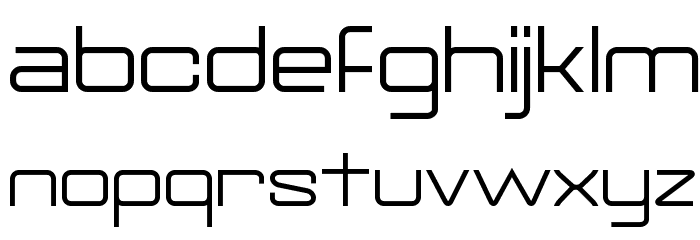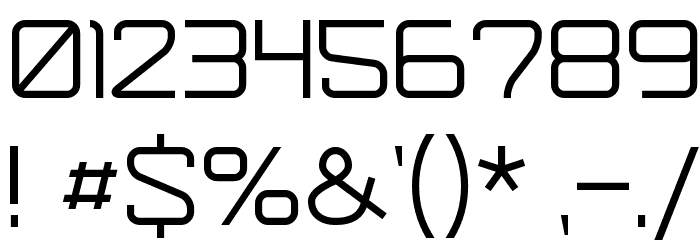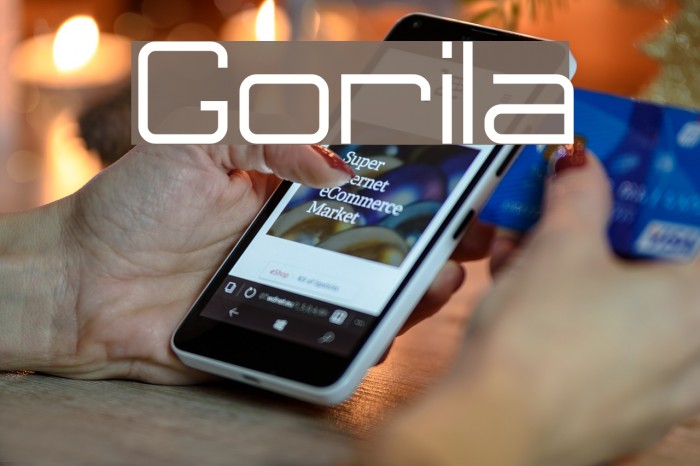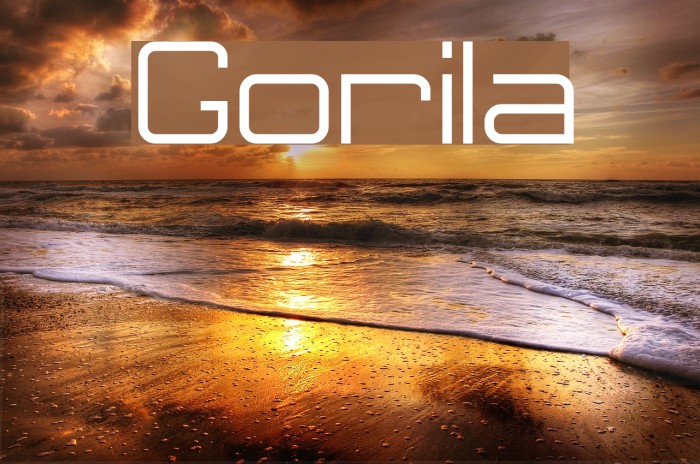
Gorila Font
This font features a modern, geometric design with clean lines and a structured appearance. The characters are uniform in width, giving it a monospaced feel, although it is not strictly monospaced. The uppercase letters are bold and assertive, while the lowercase letters maintain a consistent height, enhancing readability. The numerals are distinct and align well with the overall style, making them suitable for digital displays. Special characters are crafted with precision, maintaining the font's cohesive look. The overall design is sleek and futuristic, ideal for projects that require a contemporary and technical aesthetic.
A modern, geometric font with clean lines and a structured, futuristic appearance.
- Proposed Projects: Ideal for tech branding, digital interfaces, modern advertising, and futuristic designs.
- Use Case: Headlines, Logos, Digital displays